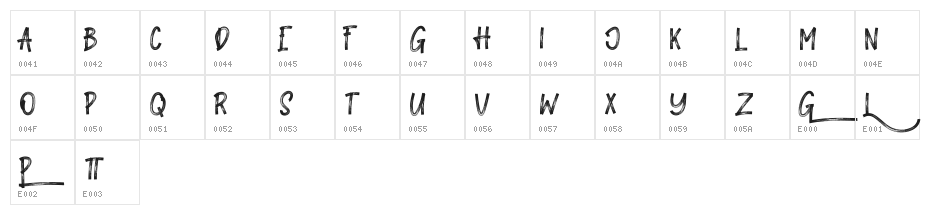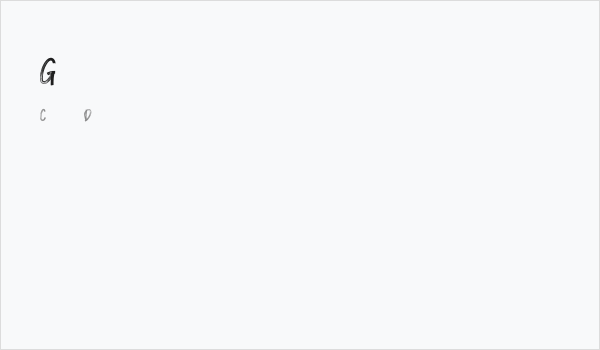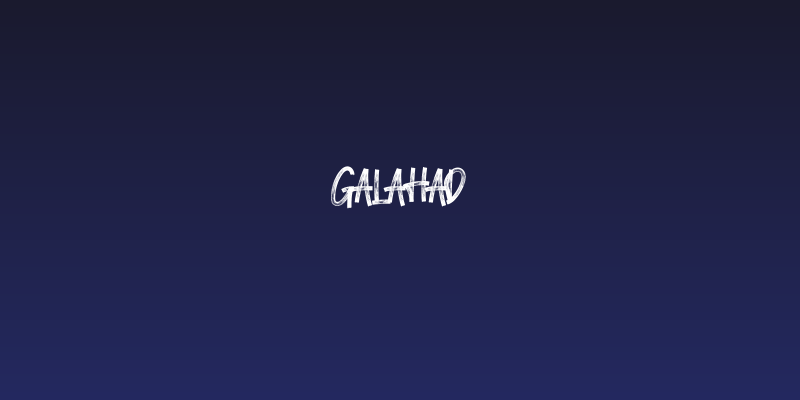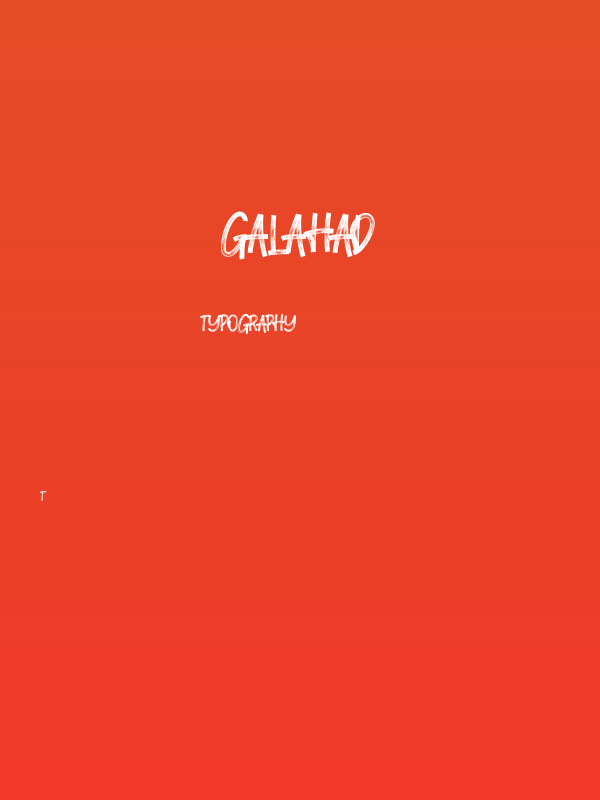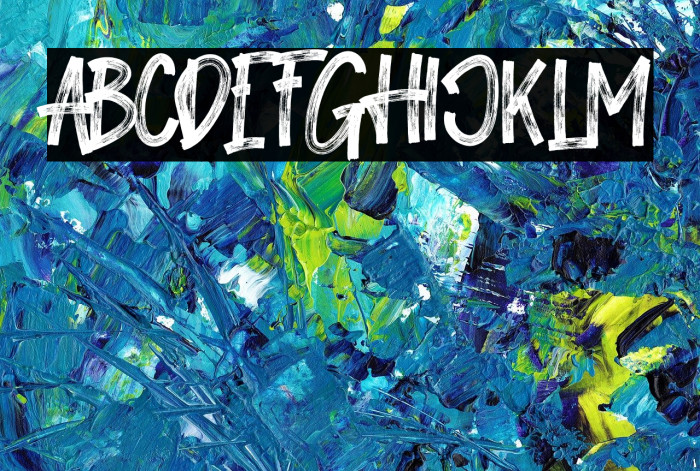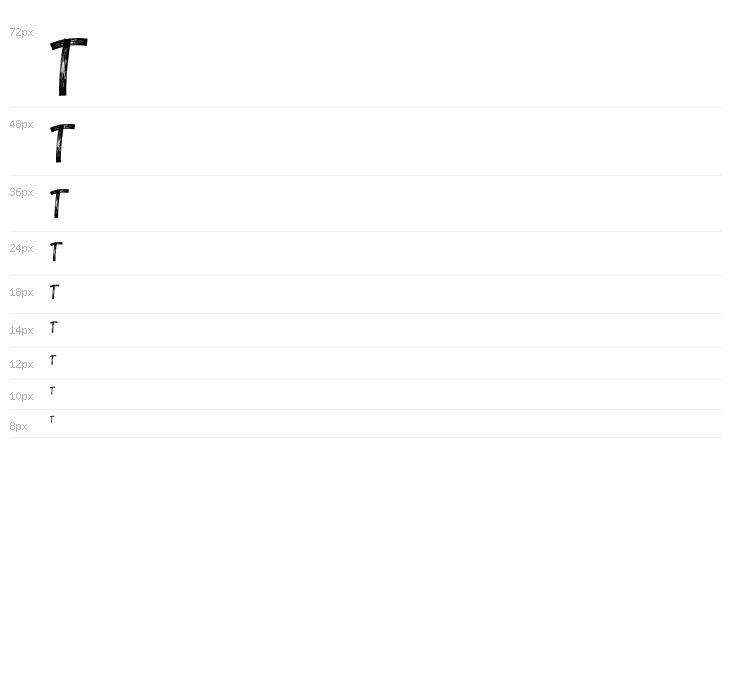
Galahad Font
Galahad Description
This font features a bold, hand-drawn style with a textured appearance that gives it a dynamic and energetic feel. The uppercase letters are characterized by their irregular strokes and varying thickness, creating a sense of movement and spontaneity. The overall design is playful yet edgy, making it suitable for creative and informal projects. The unique texture adds depth and interest, making each letter stand out individually while maintaining a cohesive look across the alphabet.
| Proposed Projects | Ideal for posters, album covers, creative branding, and any project requiring a bold, artistic touch. |